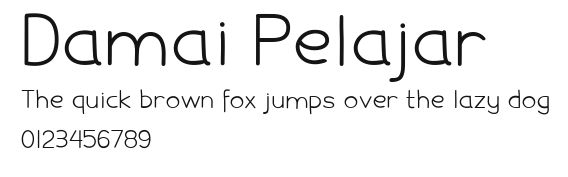
• Font Name: Damai Pelajar
• Full Font Name: Damai Pelajar Normal
About Damai Pelajar.ttf
Damai Pelajar.ttf is a modern, elegant sans-serif font designed for ultimate readability and visual harmony. Perfect for branding, headlines, web design, and print materials.